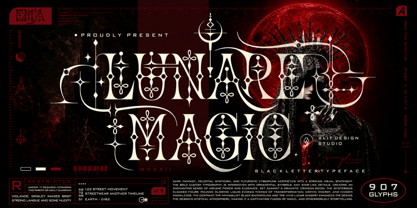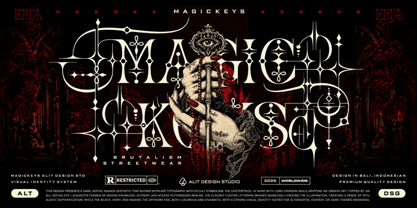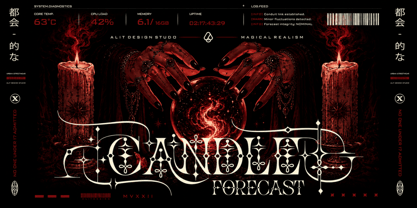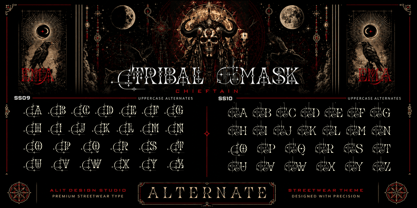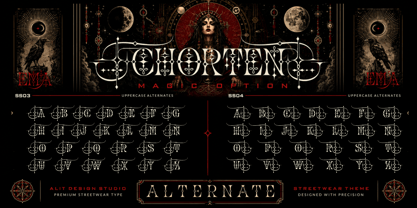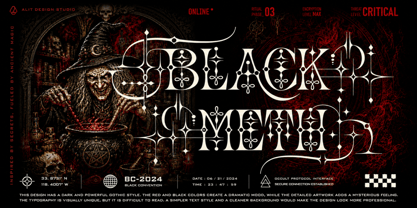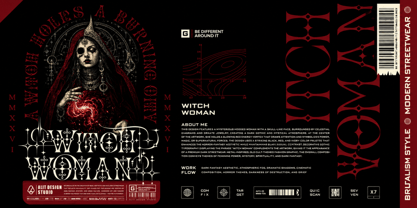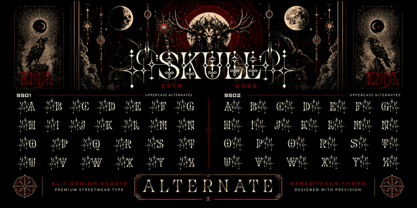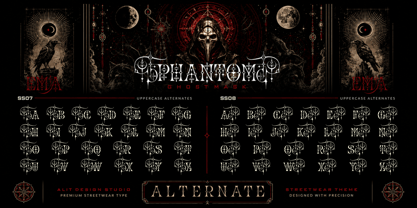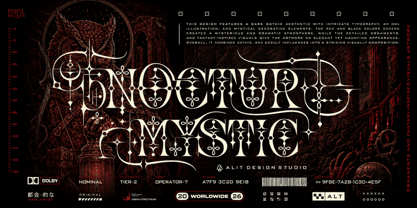
Lunare Magic
by Alit Design
The Lunare Magic Font Family was designed by Alit Suarnegara and published by Alit Design. Lunare Magic contains 1 styles. More about this family
Unveil the arcane power and elegance of Lunare Magic, a striking blackletter typeface designed to captivate and command attention. Masterfully crafted by Alit Design Studio, this font seamlessly blends dark fantasy, celestial mysticism, and gothic aesthetics into a singular visual statement.
Lunare Magic is not just a font; it is a visual identity system tailored for creators inspired by mystery. The bold custom typography is interwoven with intricate ornamental symbols and delicate star-like details, giving your artwork an elegant yet haunting appearance. Whether you are designing for brutalism streetwear, dark horror concepts, occult-themed branding, or striking music merchandise, Lunare Magic provides the perfect atmospheric foundation.
Key Features:
• Massive Character Set: Includes a comprehensive total of 907 glyphs to give you ultimate creative freedom.
• Versatile Typography: Comes complete with standard Uppercase and Lowercase letters, Numbers, and a full range of Symbols.
• Extensive Customization: Features abundant Stylistic Alternates (ranging from SS01 to SS10) and unique Ligatures to make your typography truly custom.
• Global Reach: Includes robust Multilingual Support to cater to a worldwide audience.
Embrace the darkness, unlock the magic keys, and elevate your next design project with the unforgettable allure of Lunare Magic.